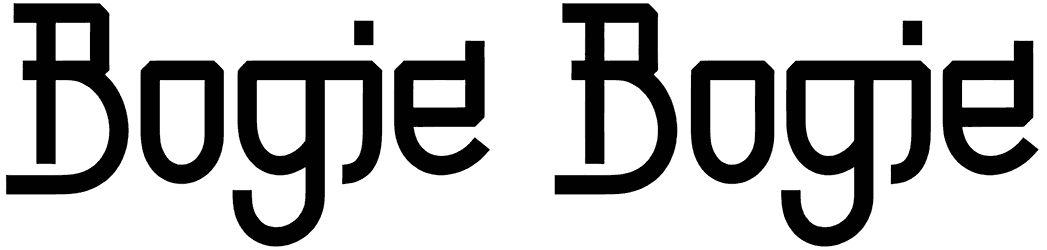
Bogie Bogie Font
When you use a distinct letterform for your creative design, the outcome will be more mesmerizing, and this is what this sign font is able to do. The characters are unique and modern, yet you can find a classic vibe in them. As a fancy font, the Bogie Bogie font will make your café board interesting even without numbers.